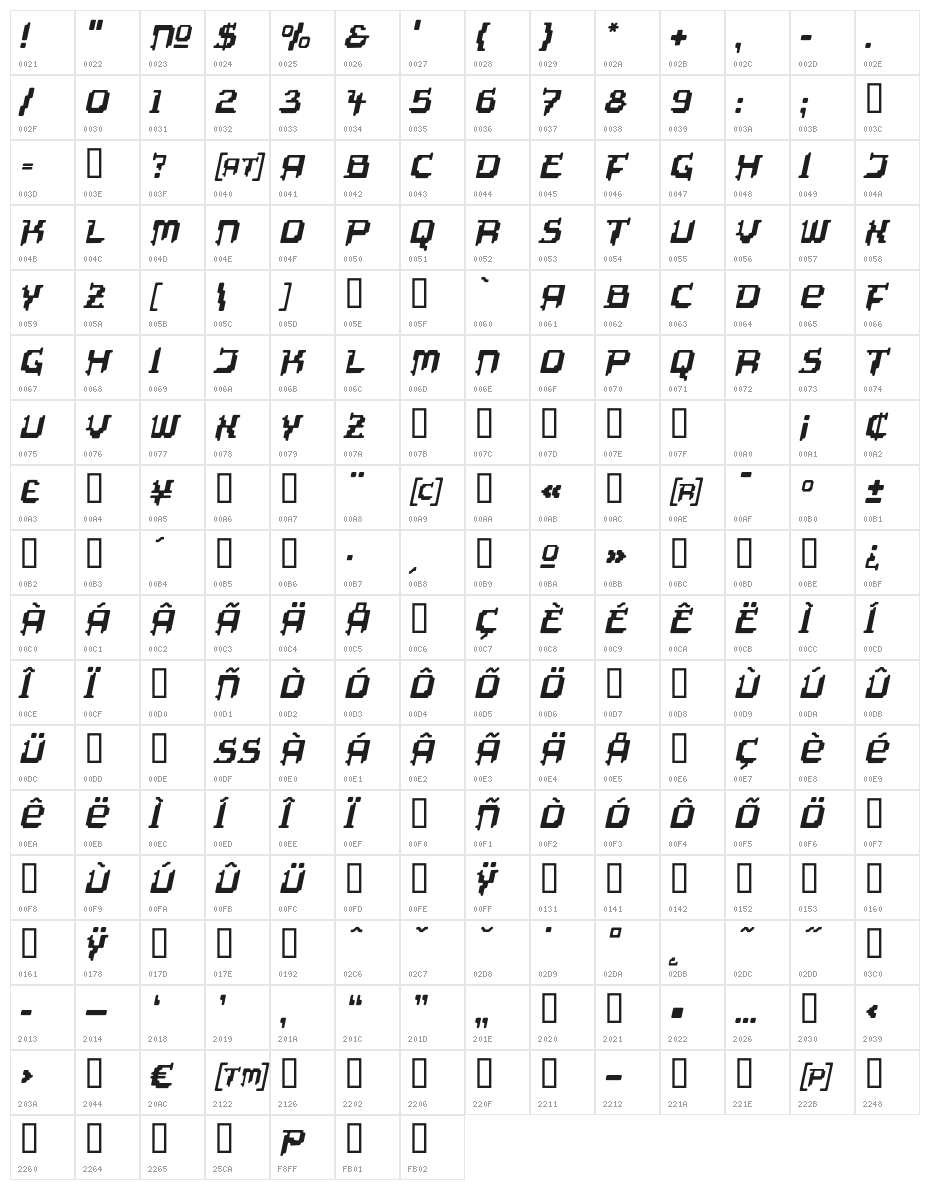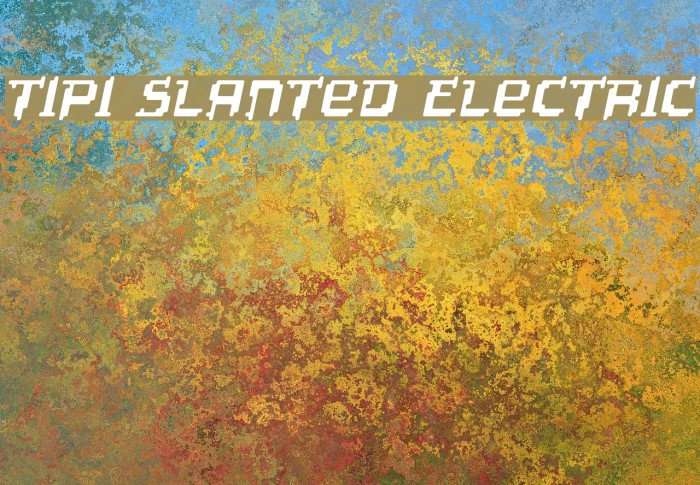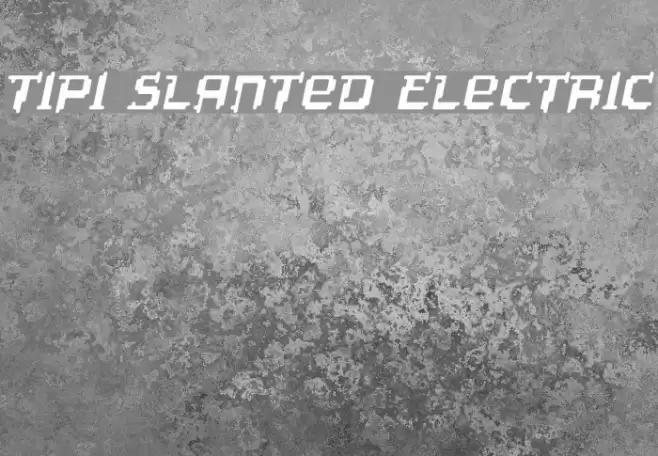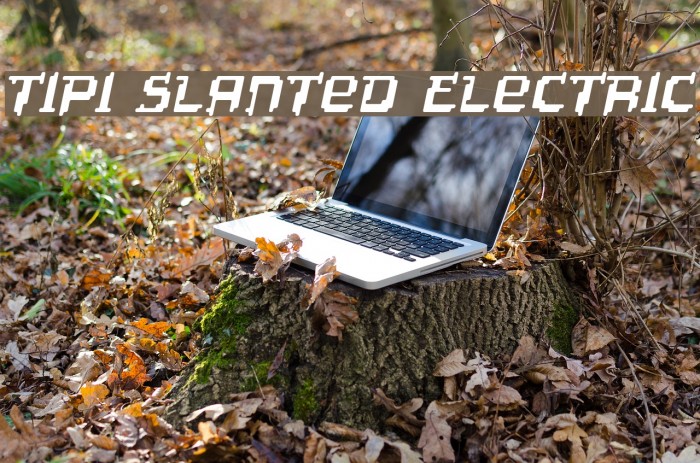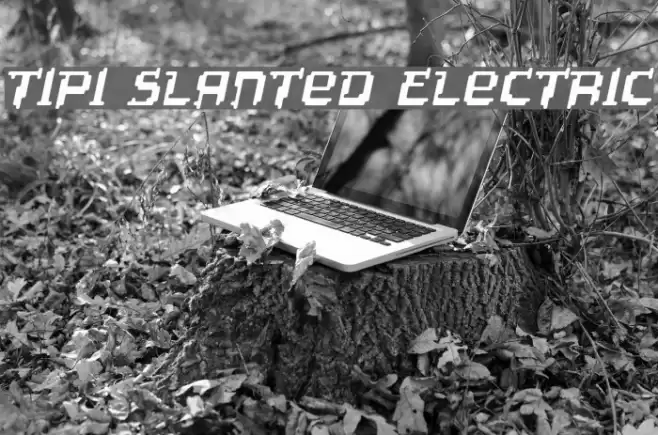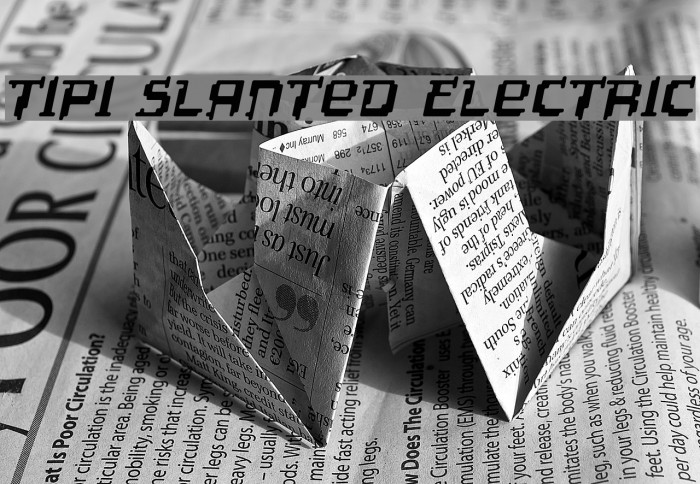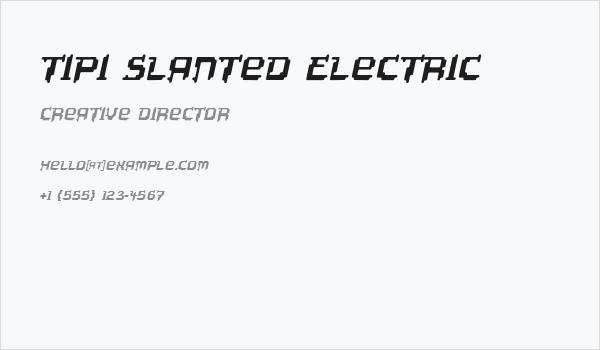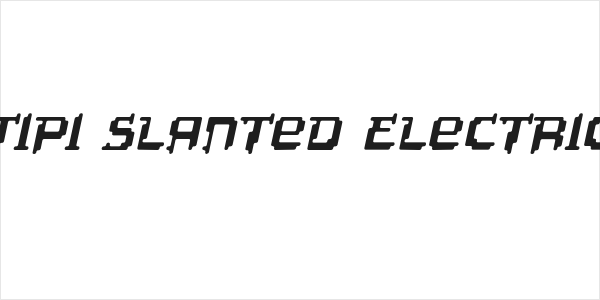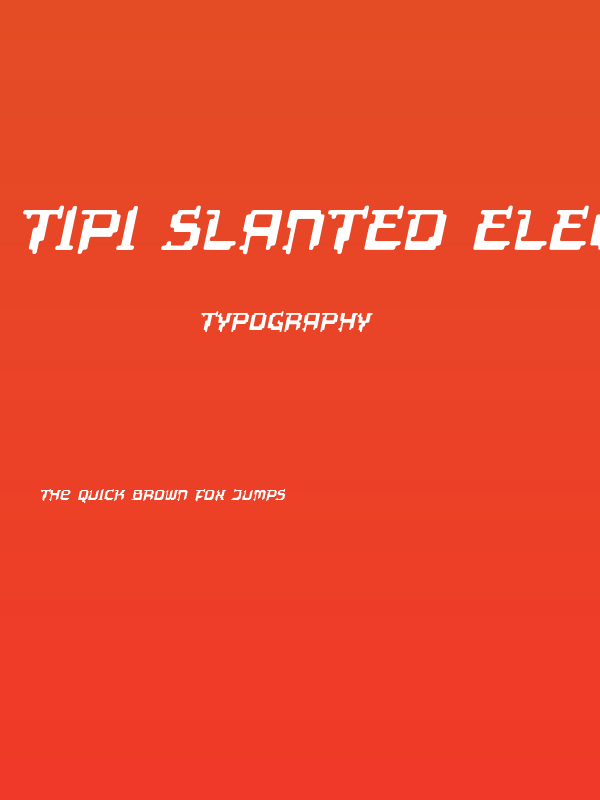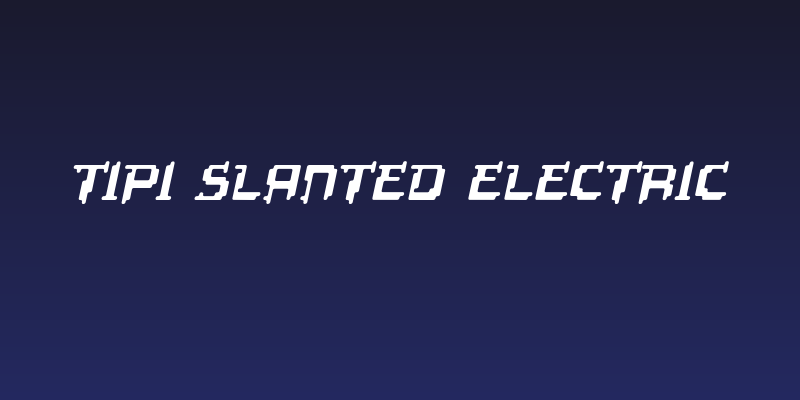
Tipi Slanted Electric Font
Tipi Slanted Electric Description
This font features a bold, angular design with a distinct slant, giving it a dynamic and energetic appearance. The characters are constructed with sharp edges and a blocky style, reminiscent of digital or electronic aesthetics. The uppercase and lowercase letters maintain a consistent geometric form, while the numbers and special characters follow the same angular theme. The overall look is modern and slightly futuristic, making it suitable for projects that require a tech-savvy or edgy vibe. The font's unique style ensures it stands out, making it ideal for attention-grabbing headlines or logos.
| Proposed Projects | Ideal for tech-related branding, video game titles, futuristic posters, and digital media. |